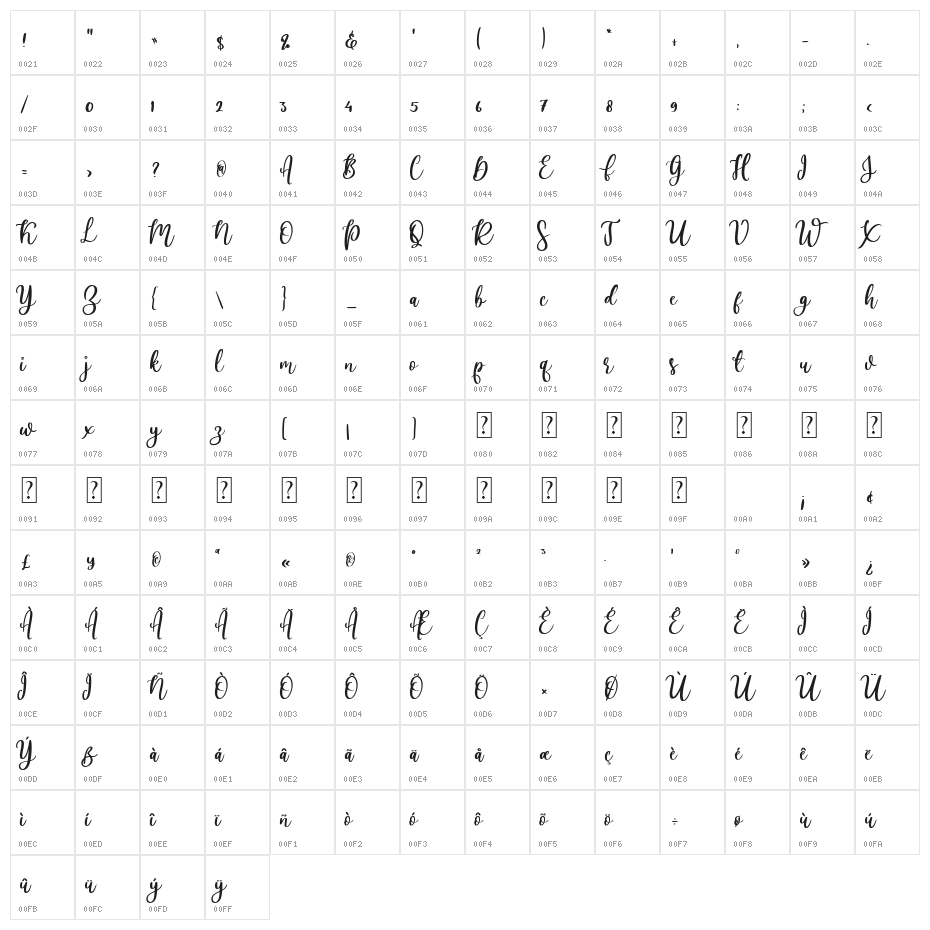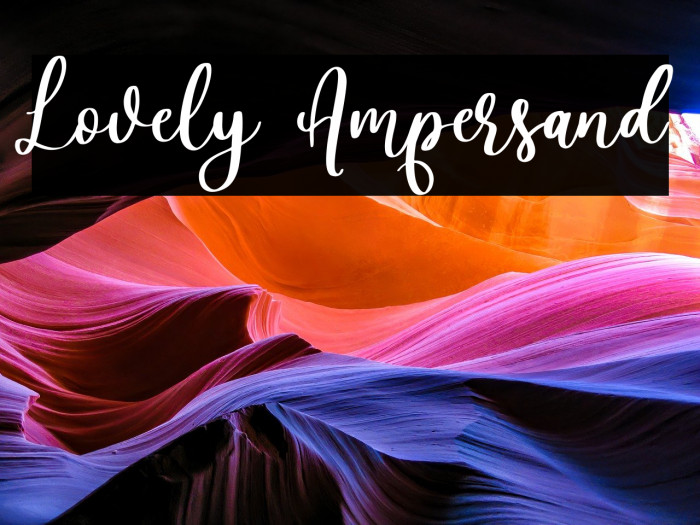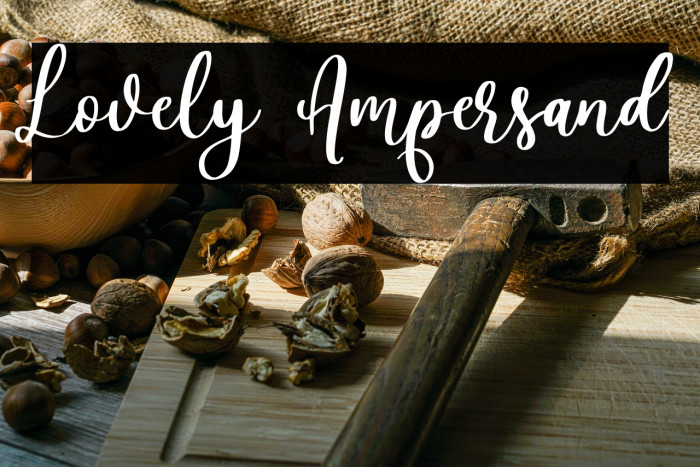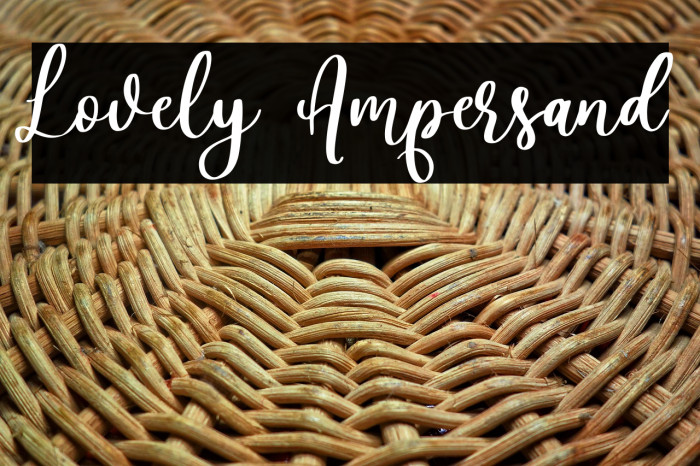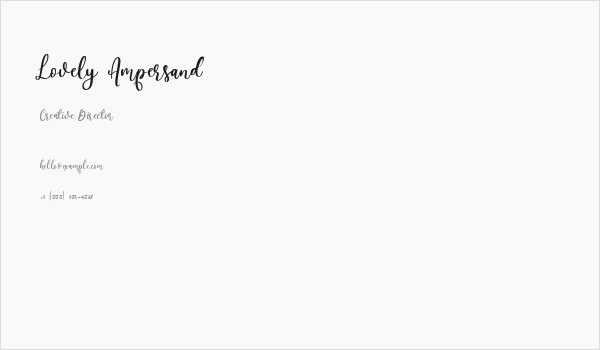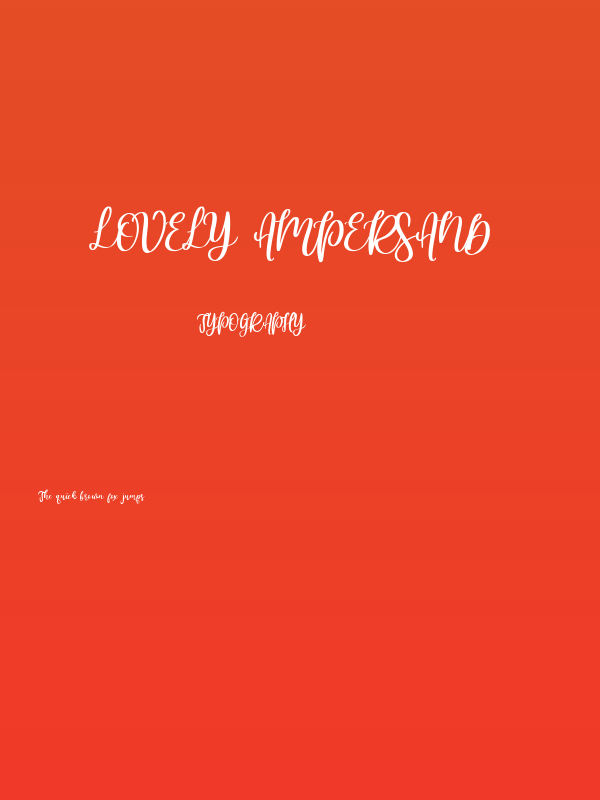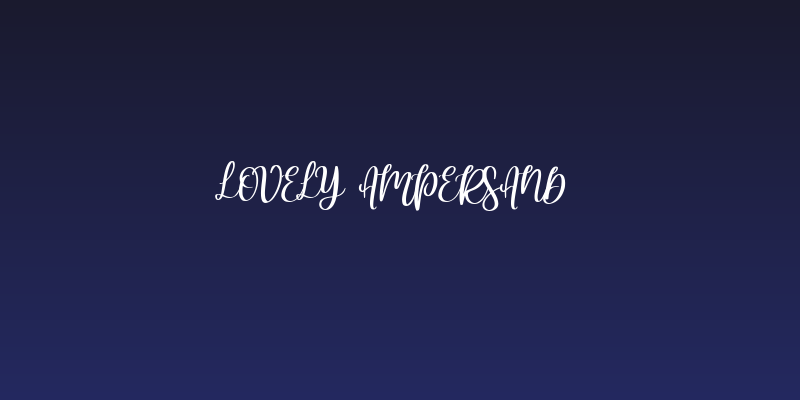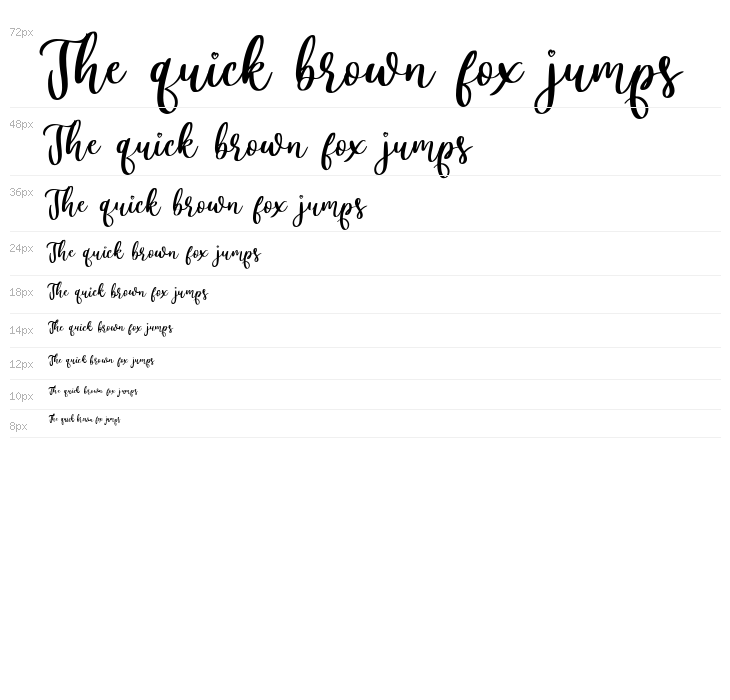
Lovely Ampersand Font
Lovely Ampersand Description
This font features an elegant and flowing script style, characterized by its intricate loops and swirls. The uppercase letters are particularly ornate, with exaggerated curves that give a sense of movement and grace. The lowercase letters maintain a consistent style, with a slightly more restrained design that complements the uppercase. Numbers and special characters are crafted with the same attention to detail, ensuring a cohesive look throughout. The overall appearance is both sophisticated and playful, making it suitable for creative and decorative applications.
Use CaseLogos, Invitations, Decorative text
Proposed ProjectsIdeal for wedding invitations, greeting cards, branding, and decorative signage.